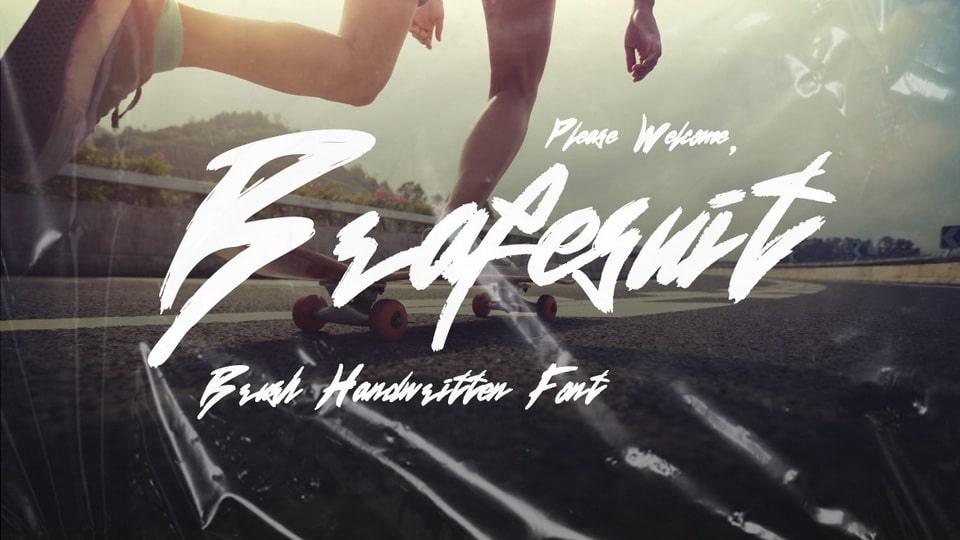
Download Brafesuit font, a dynamic and energetic hand-drawn typeface that captures the raw power of fast, rough brush strokes, making it the perfect choice for designs that demand attention and action.